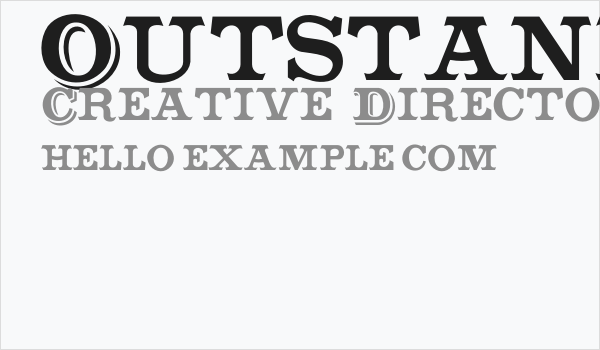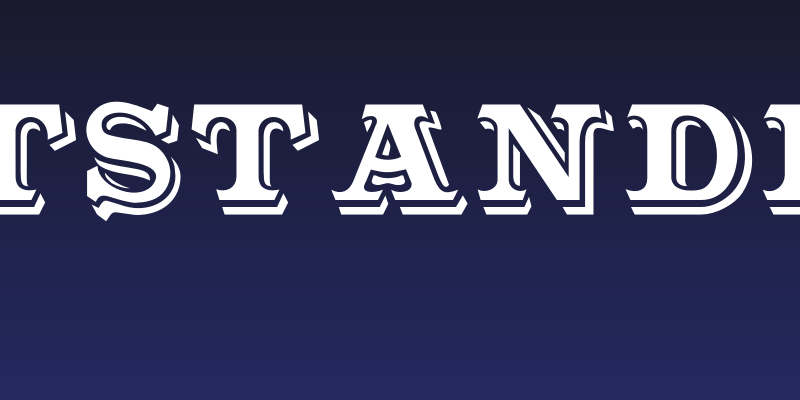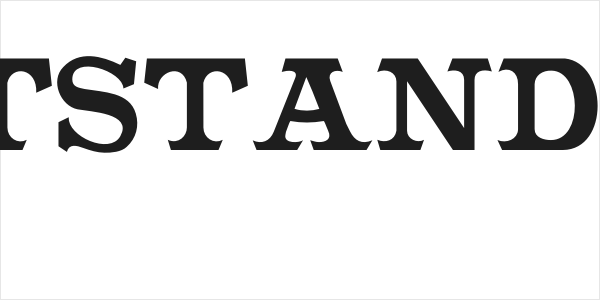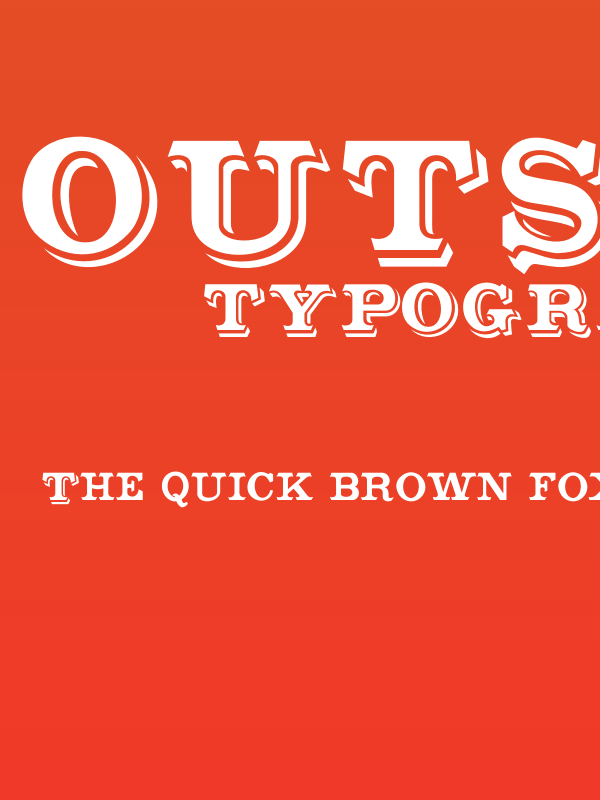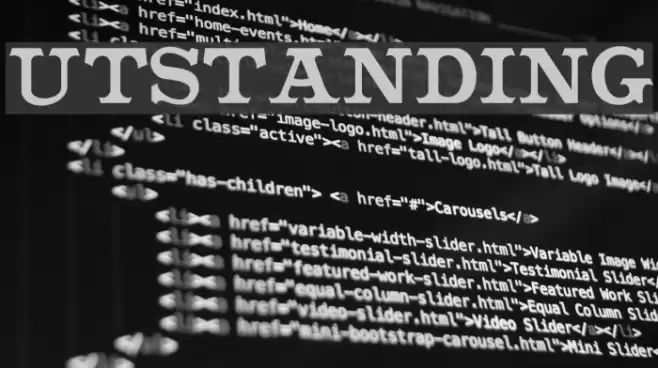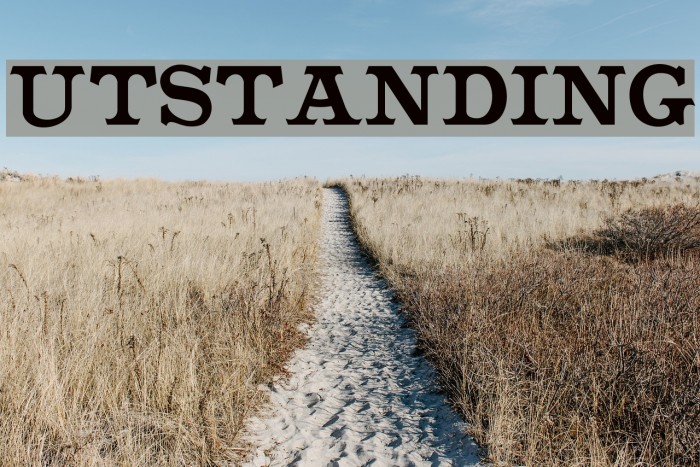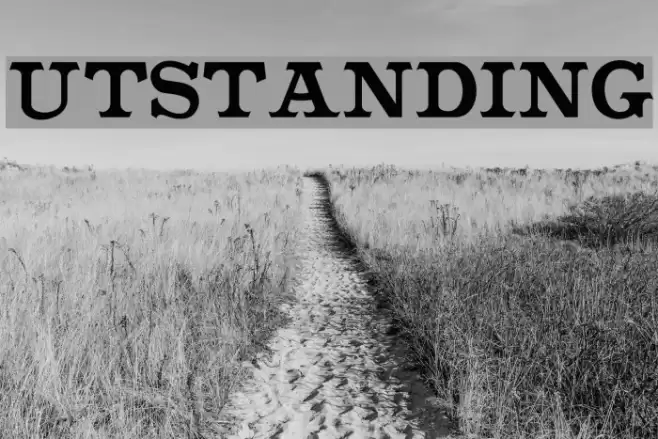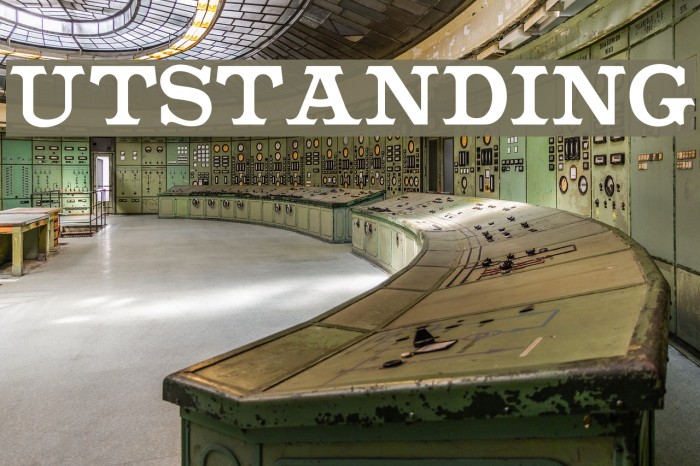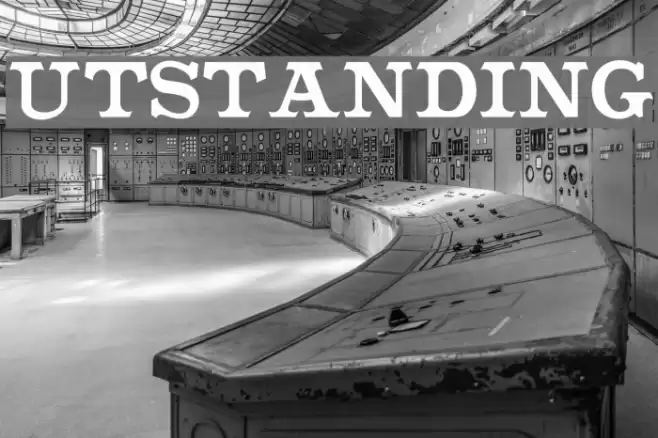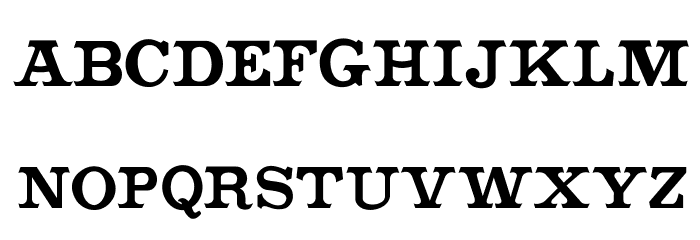
Outstanding Font
This font features a bold and striking design with a strong presence. The uppercase letters are characterized by thick, solid strokes and a shadow effect that gives them a three-dimensional appearance. The serifs are prominent and add a classic touch to the overall style. The font is highly legible and commands attention, making it suitable for impactful headlines and titles. Its boldness and decorative elements make it ideal for projects that require a strong visual statement.
| Proposed Projects | Ideal for use in posters, banners, logos, and any design project that requires a bold and attention-grabbing typeface. |